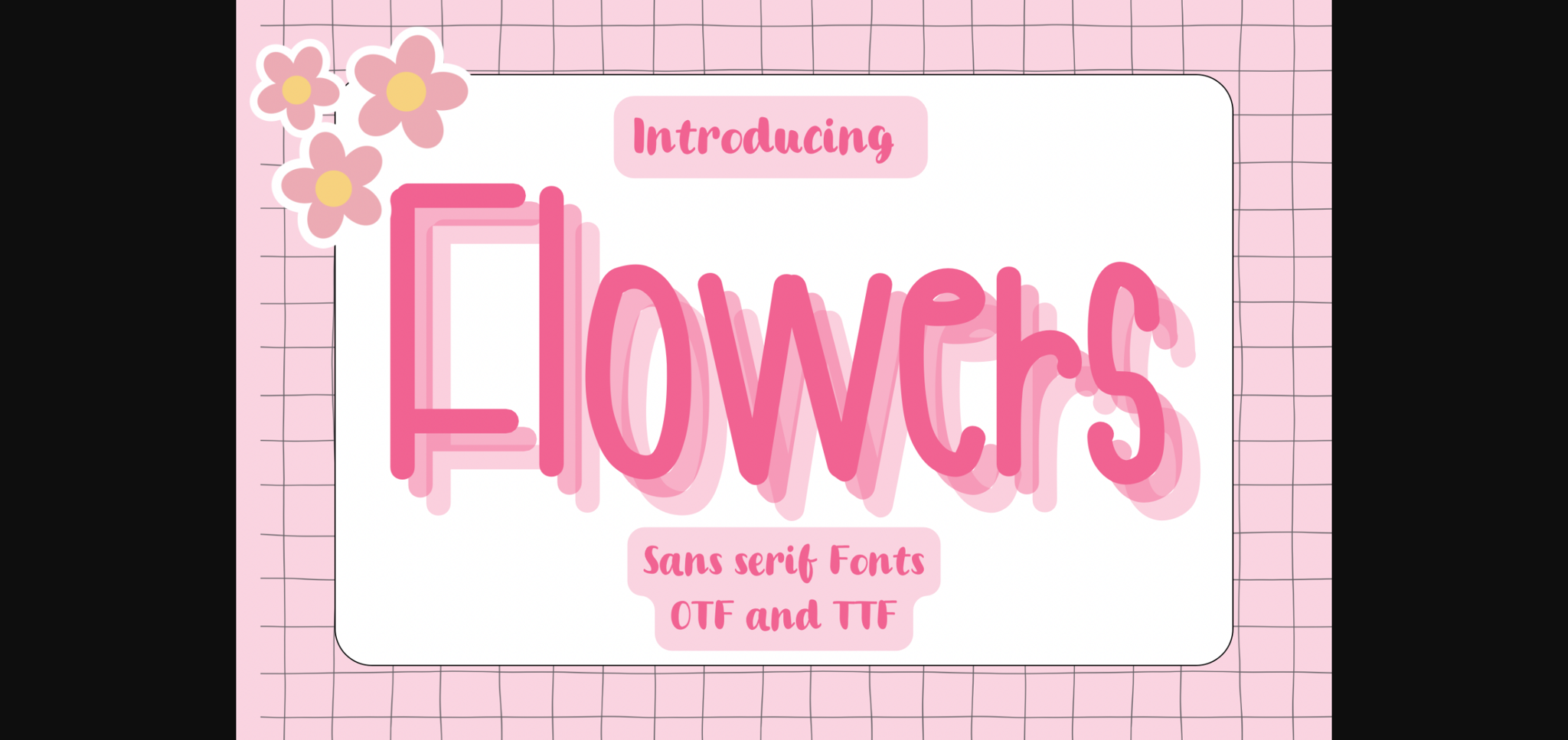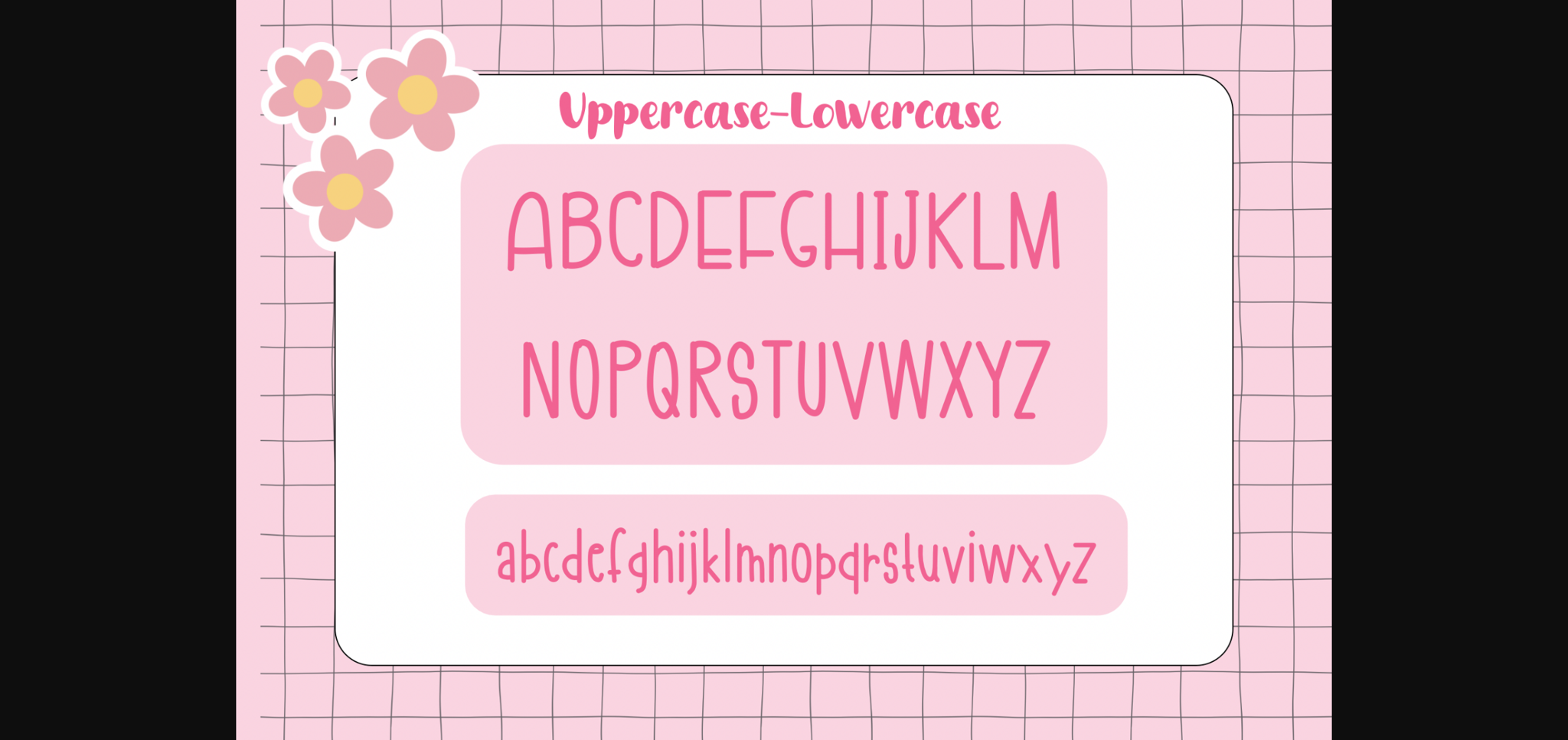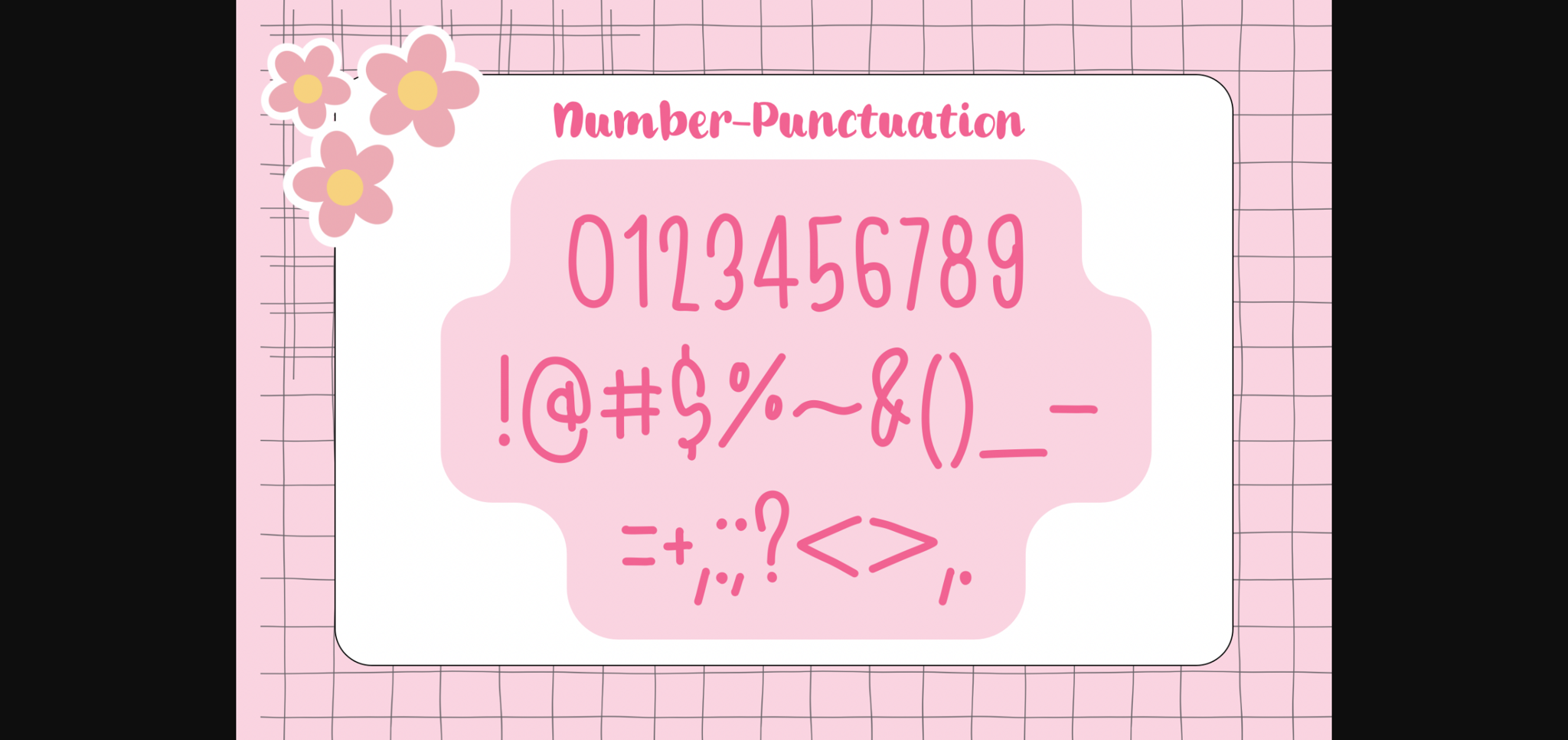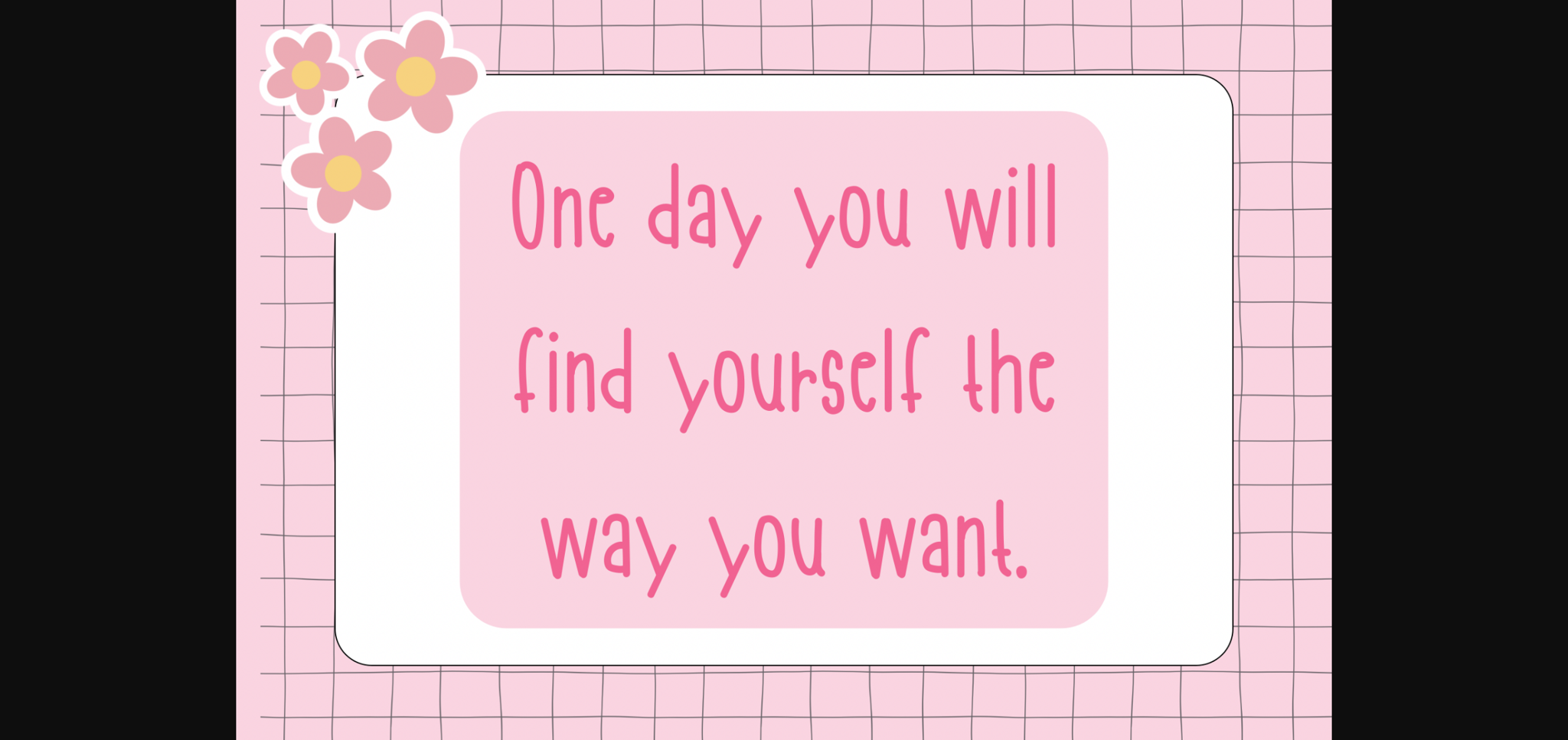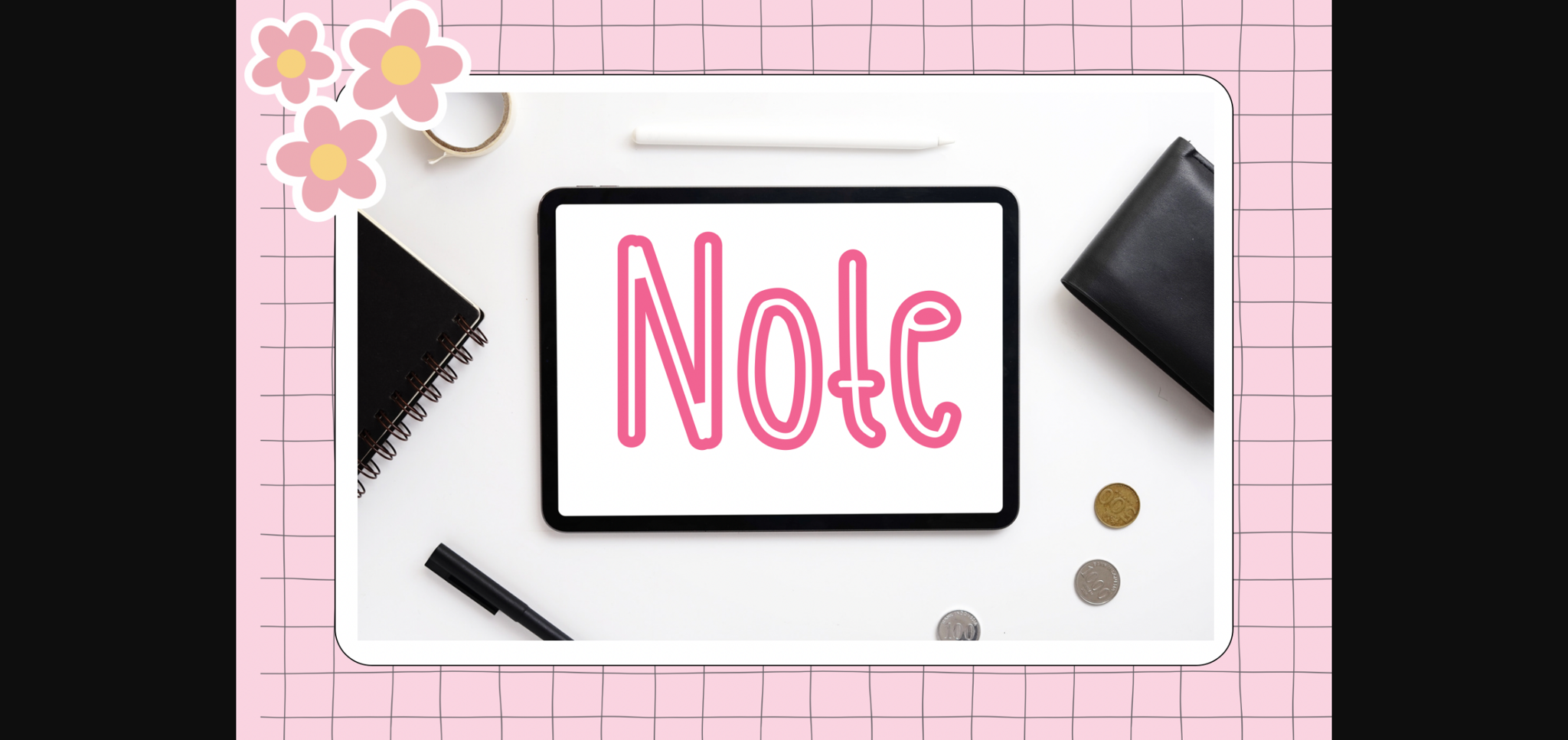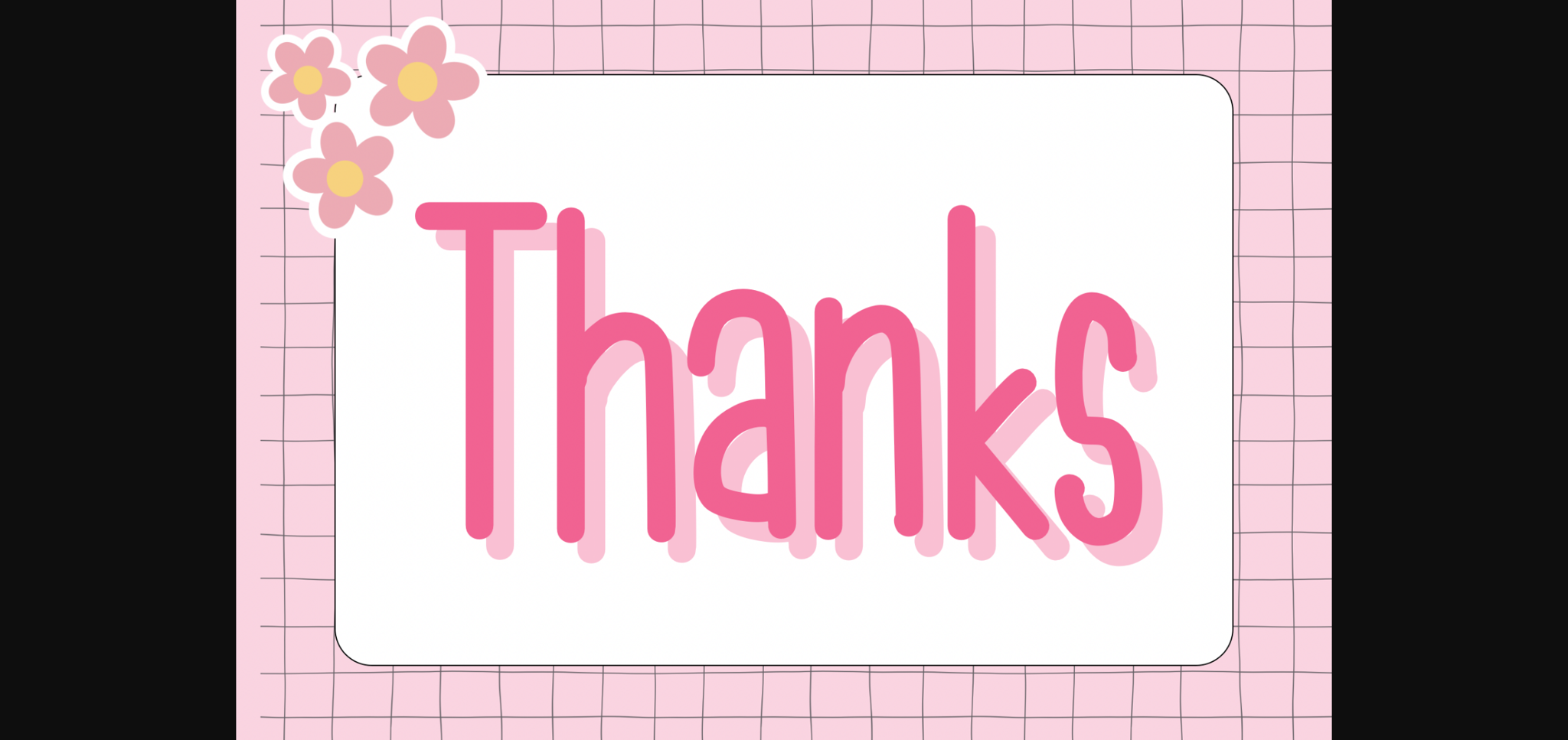
Flowers Font
About Flowers Font
Flowers is a fun and quirky sans-serif font that bursts with vibrant character. With playful letterforms and a contemporary vibe, it adds a lively touch to your designs. Ideal for projects seeking a modern and approachable aesthetic, Nations infuses a sense of whimsy into your creative expressions.